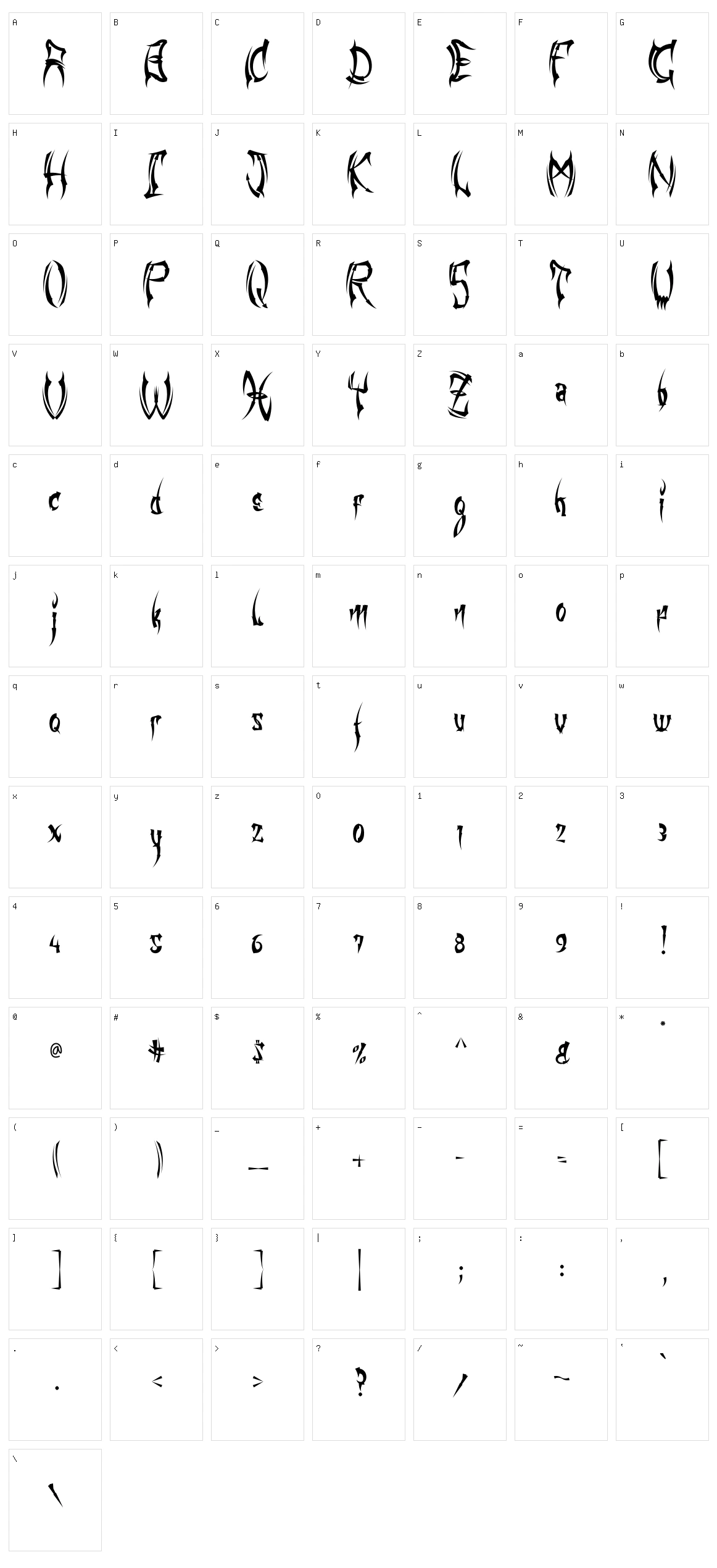
Kingfire
Designed by: Rudi Winarko
Description: The free font Kingfire is carefully designed by Rudi Winarko, showcasing a thoughtful balance of creativity and usability and belongs to the Gothic font family. When you download the ZIP file, it contains only 74.18 KB of font files, making it lightweight and quick to download. Please review the license details below to understand permitted usage and distribution rights. If license information is not available, we recommend using this font for personal projects only or contacting the author directly for commercial usage permissions.